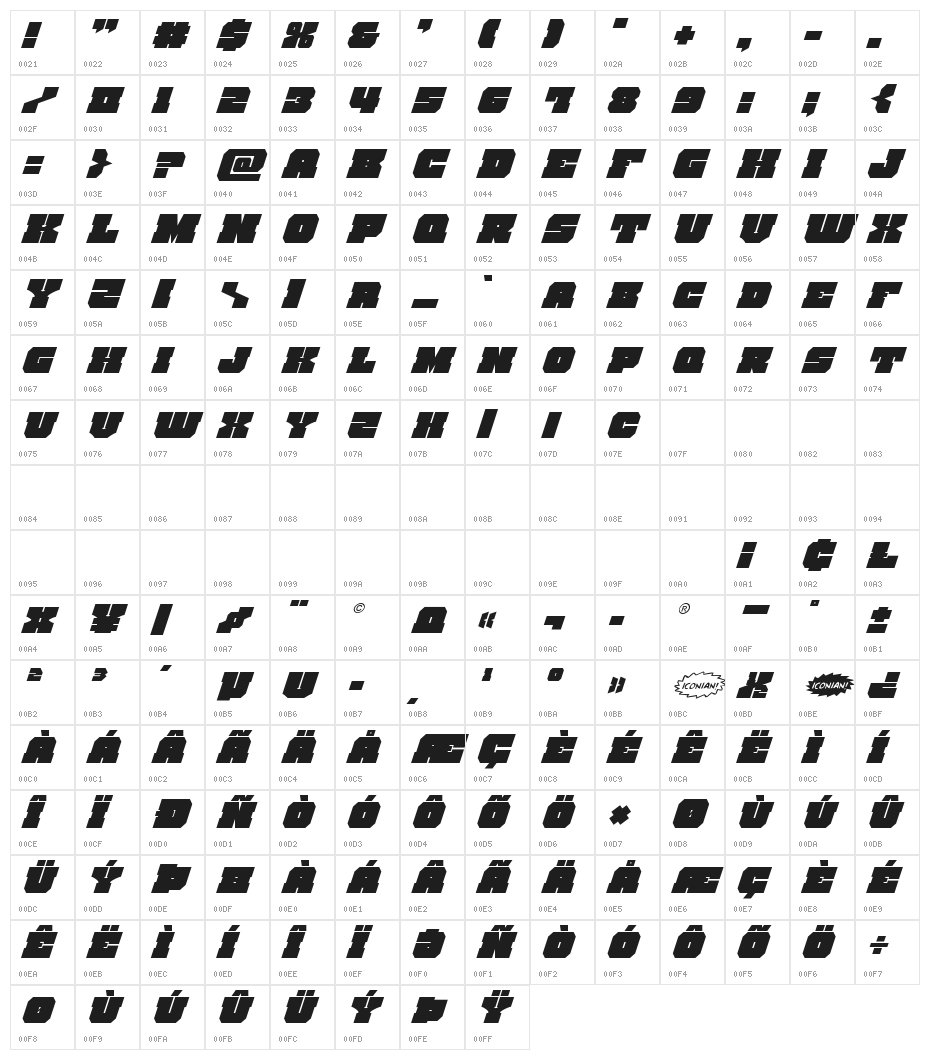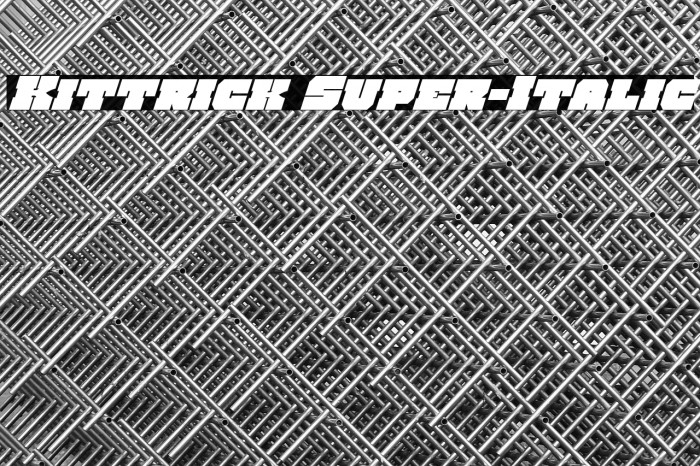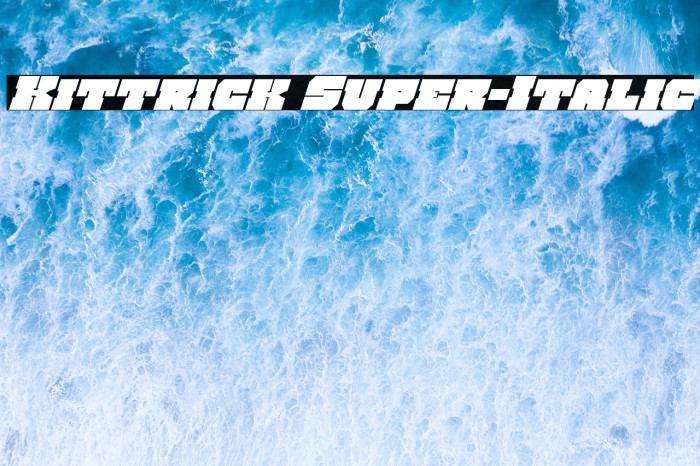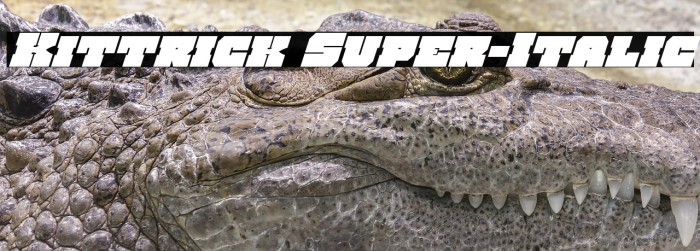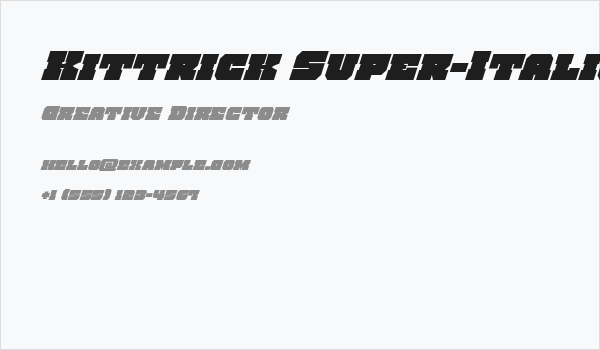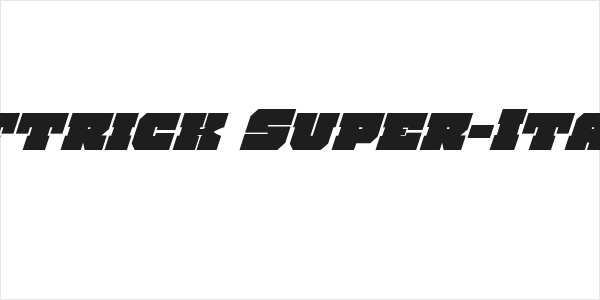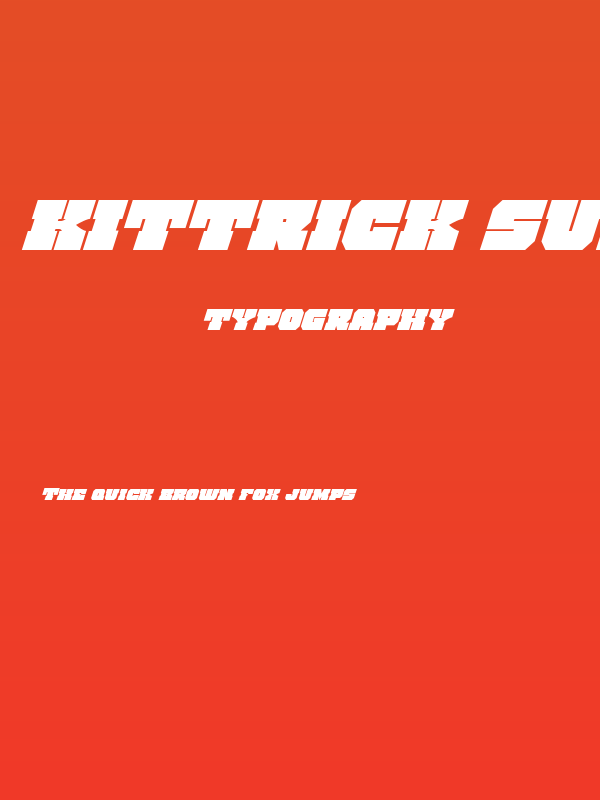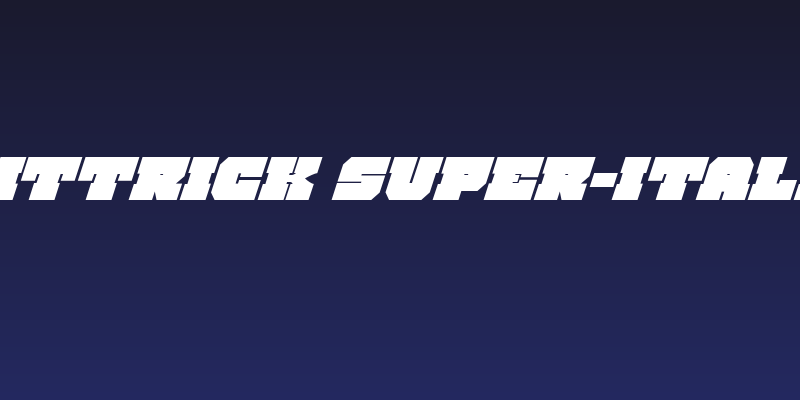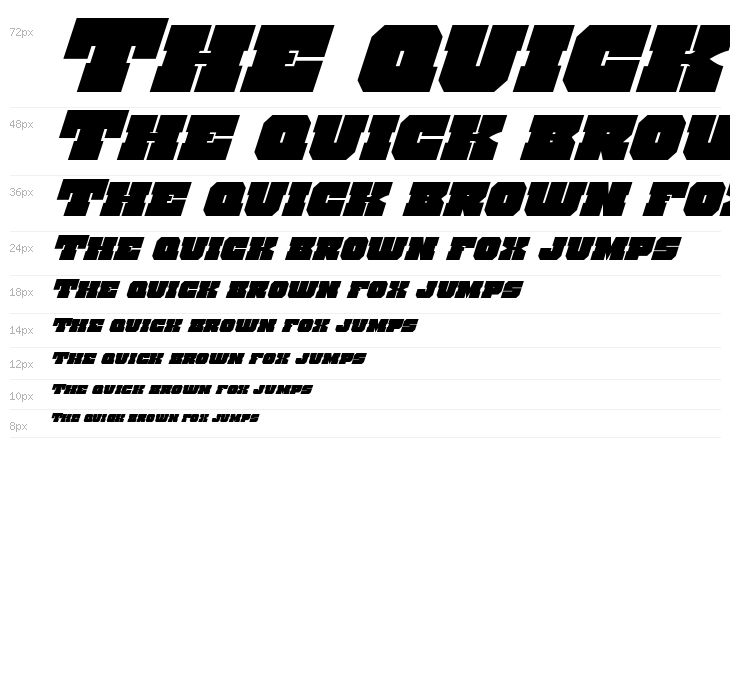
Kittrick Super-Italic Font
Kittrick Super-Italic Description
This font features a bold and dynamic design with a strong italic slant, giving it a sense of motion and energy. The characters are blocky and robust, with sharp angles and a geometric structure that conveys a futuristic or industrial feel. The uppercase and lowercase letters maintain a consistent style, with the uppercase being particularly prominent and impactful. The numerals and special characters follow the same bold and angular aesthetic, ensuring uniformity across all text elements. This font's unique style makes it stand out, ideal for projects that require a strong visual impact.
| Proposed Projects | Ideal for branding, sports team logos, video game titles, and poster designs that require a bold and dynamic presence. |